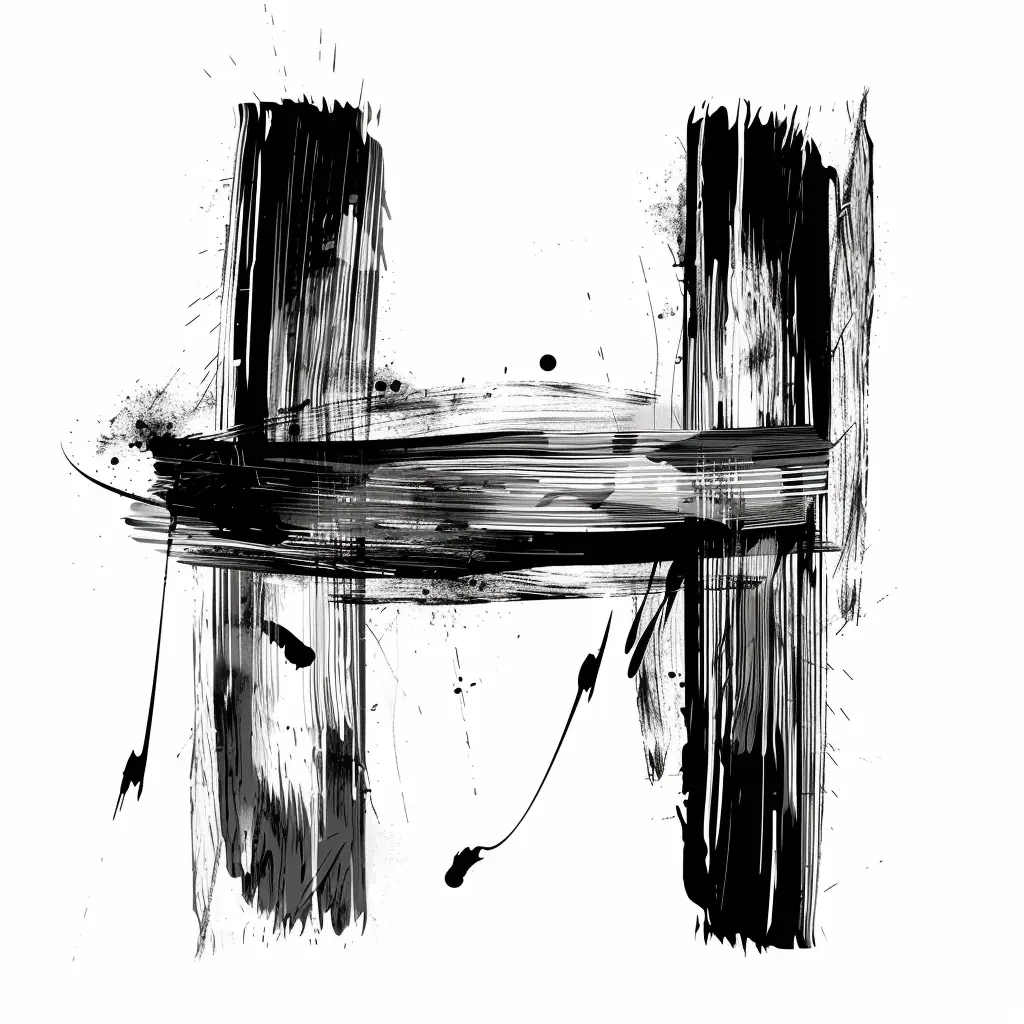
This image features a stylized, abstract representation of the letter "H" created with bold, expressive black brushstrokes and ink splatters on a white background. The design uses varying line thicknesses, drips, and textured strokes to convey a dynamic, artistic feel, with the monochromatic black-and-white palette emphasizing contrast and movement.